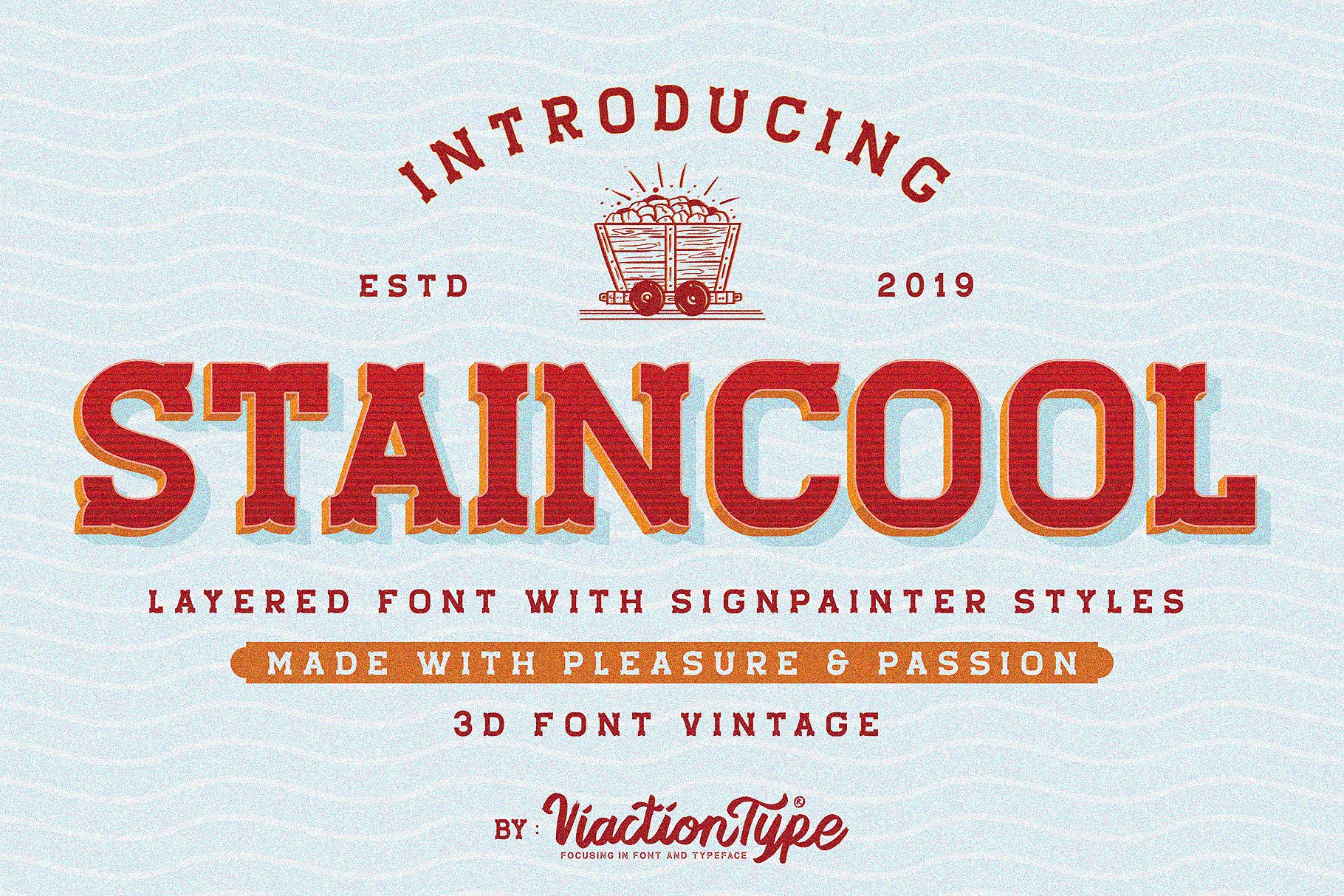
Staincool Layered Font
This is a layered font with signpainter styles, is a funny cartoon font full of personality and people will come back many times. Introducing Staincool Typeface! New product Staincool Layered Font with retro style. Inspired by the artist’s sign painter style, there are 6 layers that are easy to use. Staincool development from the Stengkol 04 font that is added to 3D fonts. This font is perfect for various design purposes such as labels, merchandise, packaging, logotype, sign and more.